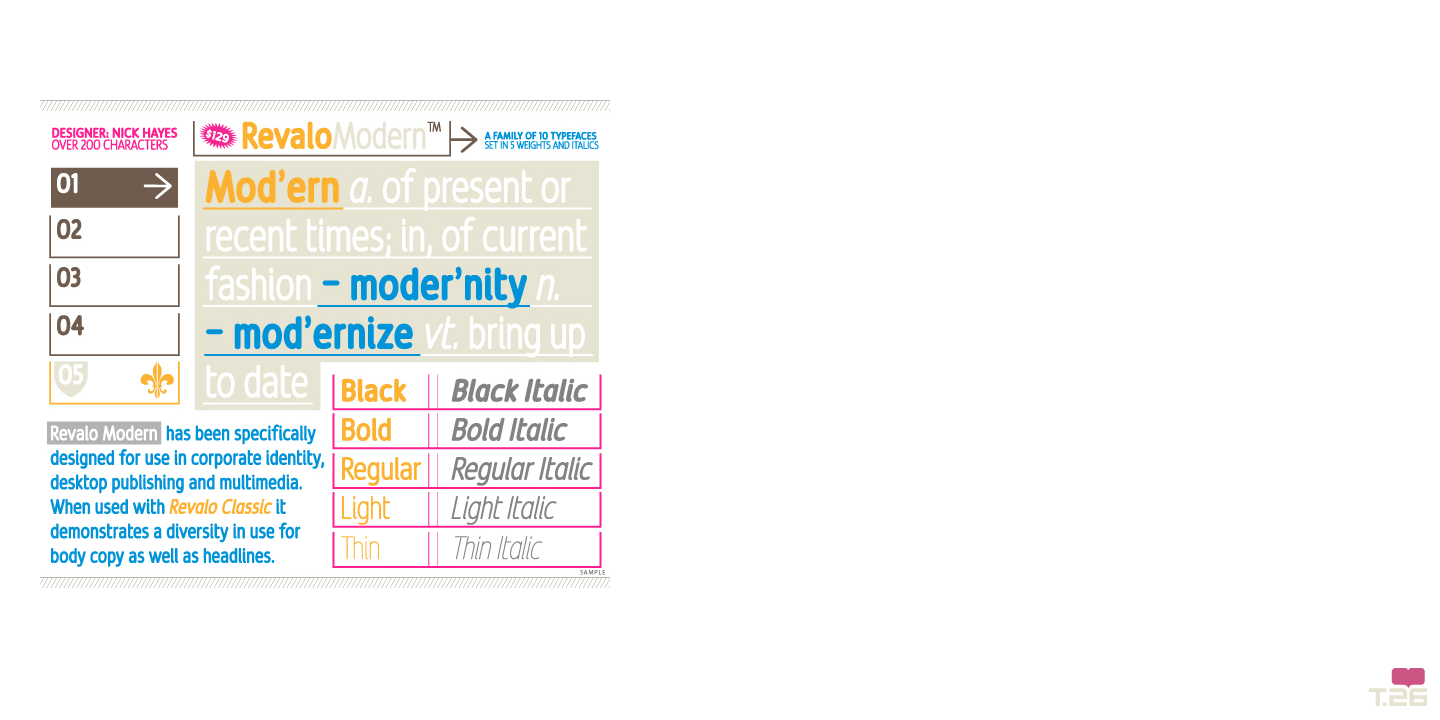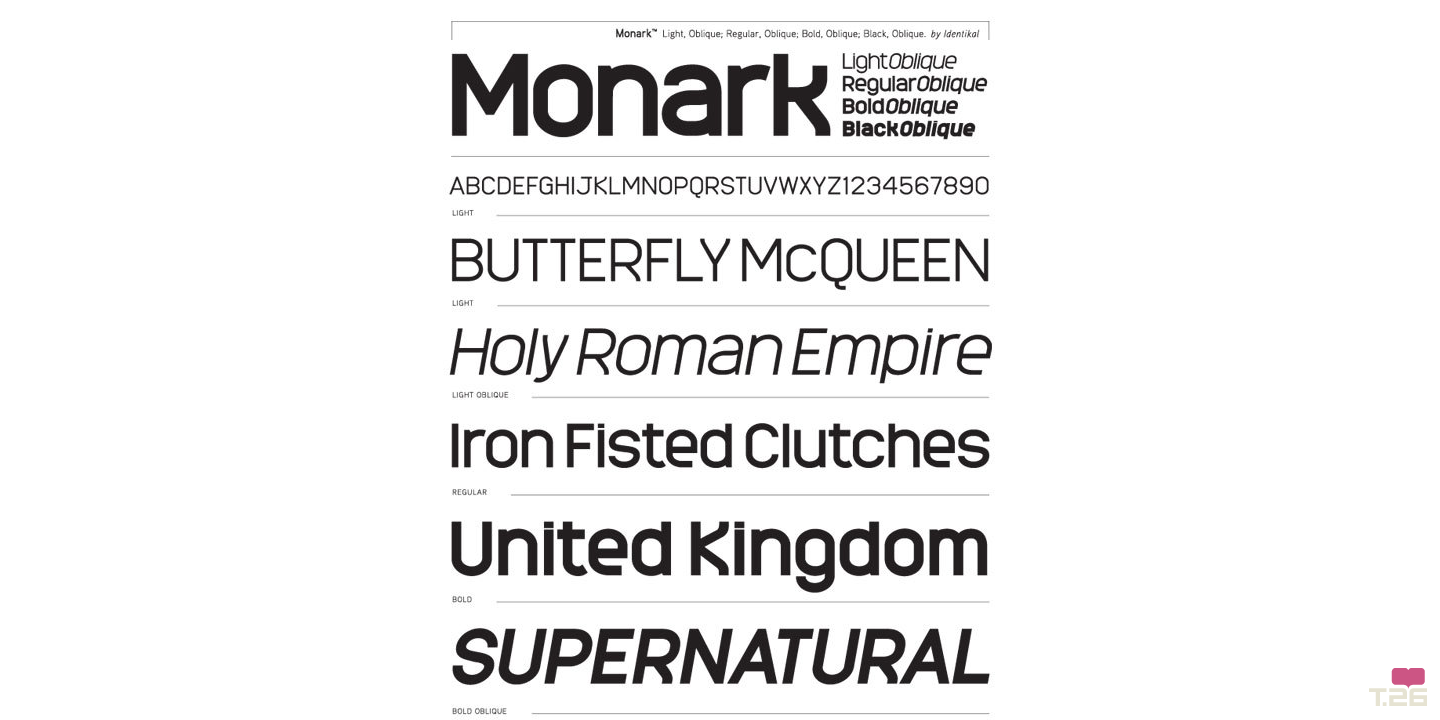
The Identikal Corporation was founded by identical twins Adam & Nick Hayes whilst studying Graphic Communication at University in the mid-nineties. Since then, it has become recognised for combining an eclectic mixture of sound and vision, capable of producing unique work for any creative problem,from Graphic Design to Moving Image, Multimedia to Sound and Type Design.
Identikal have worked with clients all over the world, from Getty Images in America and Guinness in Eire, to the Drop Club in Hong Kong, whilst managing to keep a very impressive portfolio of work due to their striking and innovative style. They have developed a reputation that attracts some of the world’s most desirable clients, such as Sony Computer Entertainment, Universal Music, Virgin, Ministry of Sound, EMAP publishing and many more.
Identikal are the team behind the cult success of the Identikal Foundry. They have created some of
the hottest modern fonts of this new century, including worldwide collections of around 250 families.
Publications including, Maxim, Timeout, Dazed and Confused, Create, Mixmag, DJ Magazine, Wired and
many others have used Identikal typefaces throughout their pages. The fonts are also popular amongst various music acts such as, Truesteppers, Shea Seger, Blue, Beverley Knight, Incognito, Shakira, Elisabeth Troy, MC Luck & DJ Neat, to name but a few. Ad campaigns such as PS2 The Third Place, the launch of the Nintendo Gameboy Advance, and Virgin Money have also used fonts from the Identikal Foundry Collections.
This has given Identikal a name in typography which many believe to be the strength and character
behind the team.